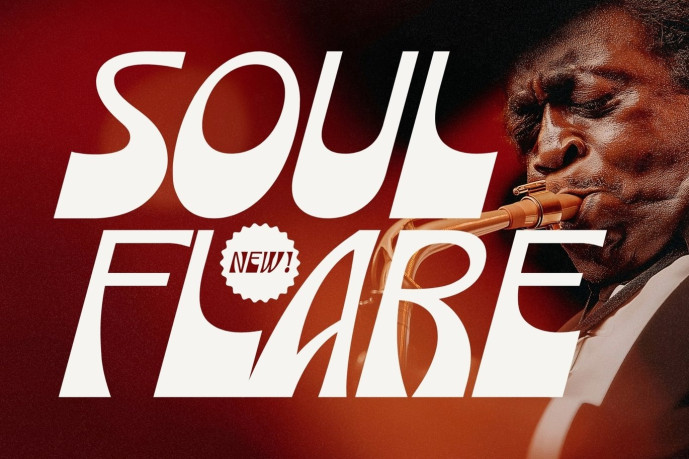
Soul Flare Font
Soul Flare Font is a brilliant retro typeface that combines vintage character with a sleek, contemporary design. Designed for bold expression and cinematic impact, it displays a powerful visual rhythm shaped by crisp curves, confident strokes, and dynamic contrast.
Designed in two styles—regular and italic—Soul Flare offers designers flexibility between structured strength and expressive movement. The italic version conveys a fluid sense of speed and energy, while the regular style features powerful, grounded letterforms with a timeless display presence.With support for 65 languages ​​and a full set of uppercase and lowercase characters, Soul Flare is designed for global creative use without losing its distinct personality. Each glyph is designed to feel intentional, blending a Western-inspired aesthetic.
This typeface is perfectly suited to projects that demand attention: film titles, posters, branding, album covers, editorial layouts, packaging, and high-impact advertisements. It carries a cinematic tension that is both nostalgic and forward-looking, making it ideal for storytelling design.